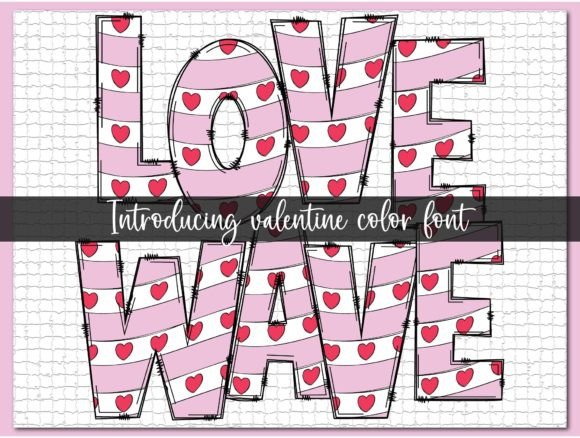
Introducing Love Wave Font, the ultimate font for Valentine's Day! Created by MDF, this lovely and beautifully designed color font is guaranteed to add a touch of romance and cuteness to your projects.
Love Wave Font is a hand-drawn font that features intricate patterns within each letter, symbolizing the joy and love associated with Valentine's Day. Its vibrant colors and playful design make it the perfect choice for any project that needs to capture the essence of love.
But that's not all! Love Wave Font is incredibly versatile and can be used in a variety of ways. Whether you're creating Valentine's Day cards, love-themed illustrations, or even social media graphics, this font will elevate your designs and make them stand out from the crowd.
Imagine the smiles and warmth that Love Wave Font will bring to your loved ones when they receive a heartfelt Valentine's Day card or see your creative designs. It's not just a font; it's a way to express and share your love with the world.